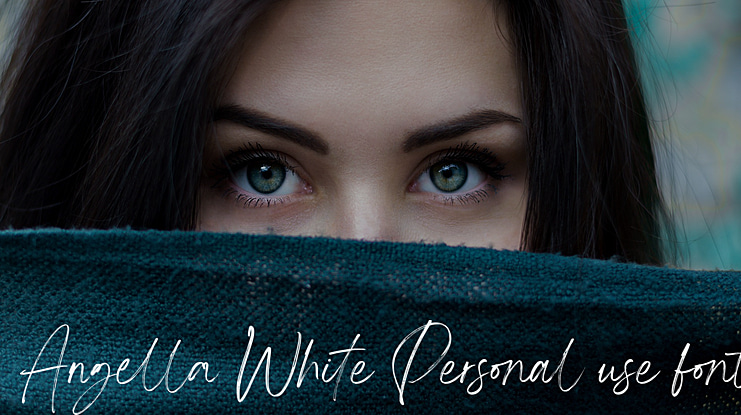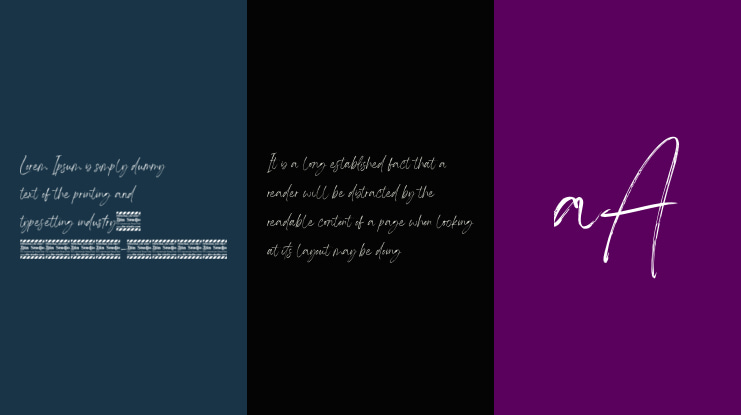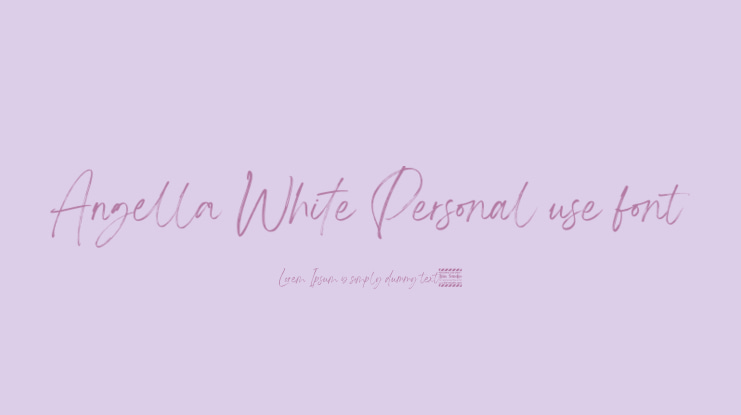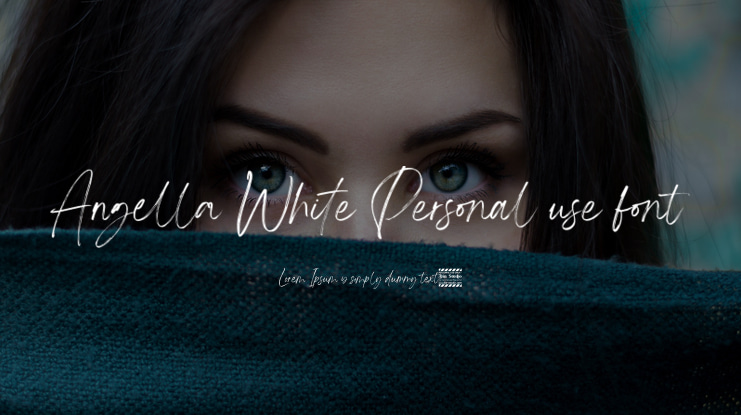
Introducing Angella White-A Brush Font
A beautifully handcrafted font combined with brush style that’ll make your guests sing and elevate your projects! Every stroke, and curve was created to entice happiness and elegance. Use it to create standout headings, promote your online sales, Instagram quotes, and even printed materials like business cards, t-shirts, or invitations.